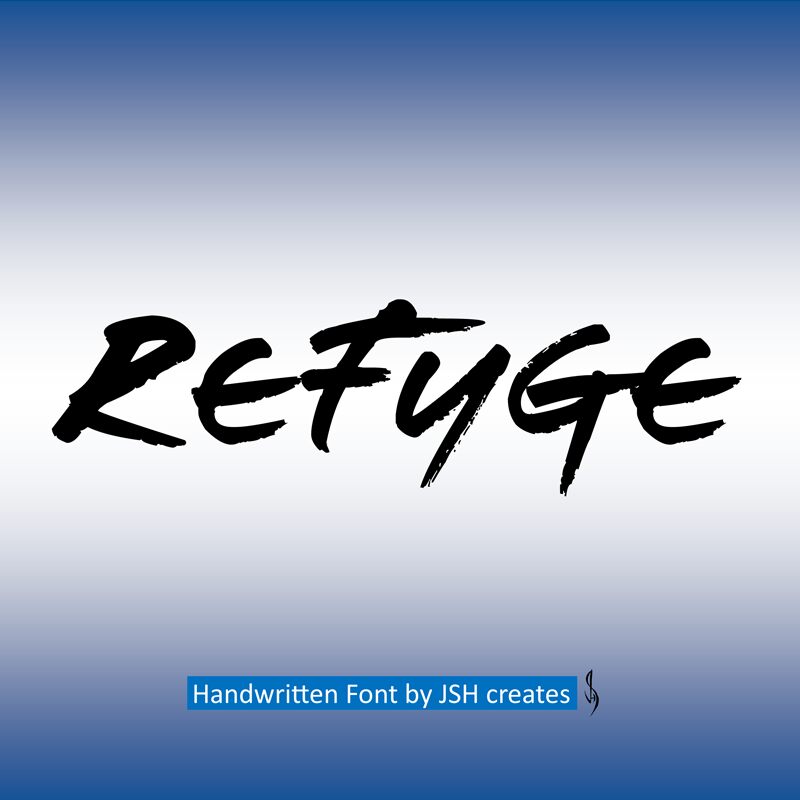
Refuge font, designed by JSH creates, exudes a vibrant and dynamic energy through its expressive brush style. The bold strokes and artistic flair make it a captivating choice for projects seeking to convey a sense of creativity and movement. Each character flows with an enticing rhythm, offering an air of spontaneity that can instantly grab attention.
Its vibrant presence makes Refuge ideal for branding, posters, and social media graphics where visual impact is paramount. The lively nature of this font not only enhances headlines but also brings a personal touch to any design, making it perfect for art events or creative businesses looking to stand out. With its unique blend of elegance and rawness, Refuge is more than just a font; it’s a statement piece that enriches the viewer's experience.